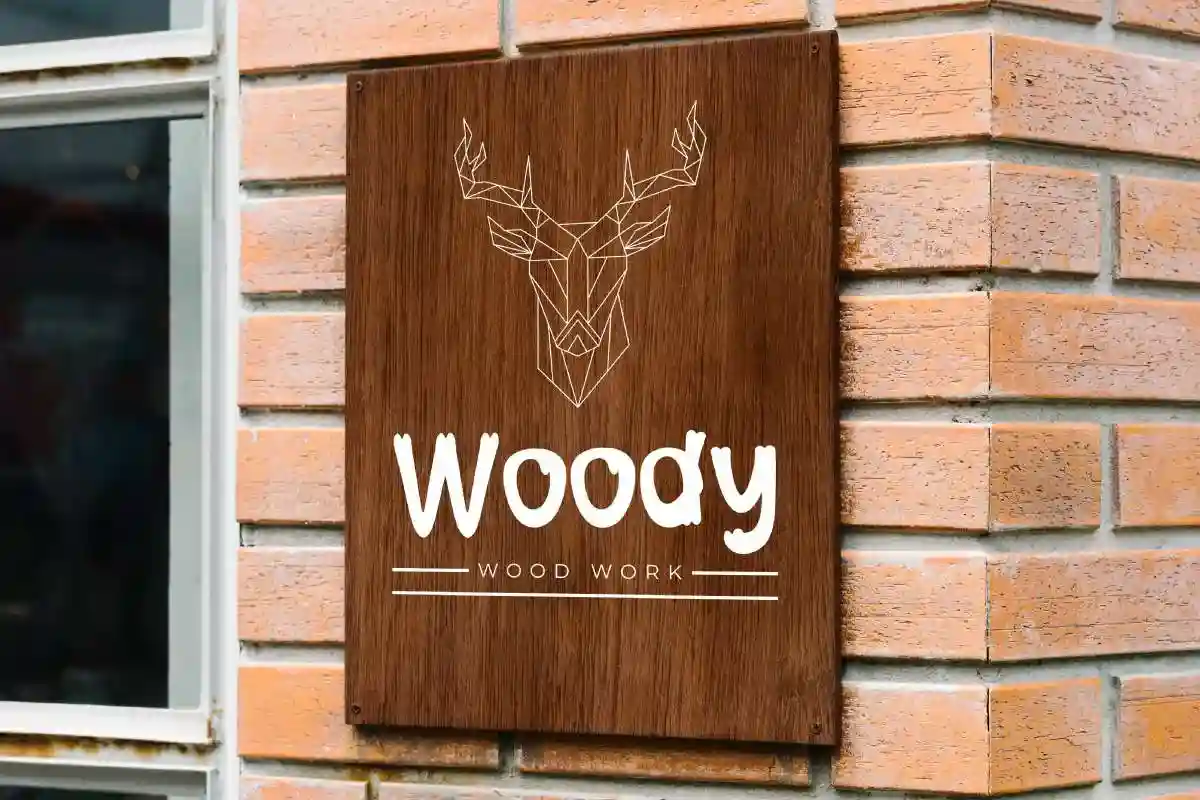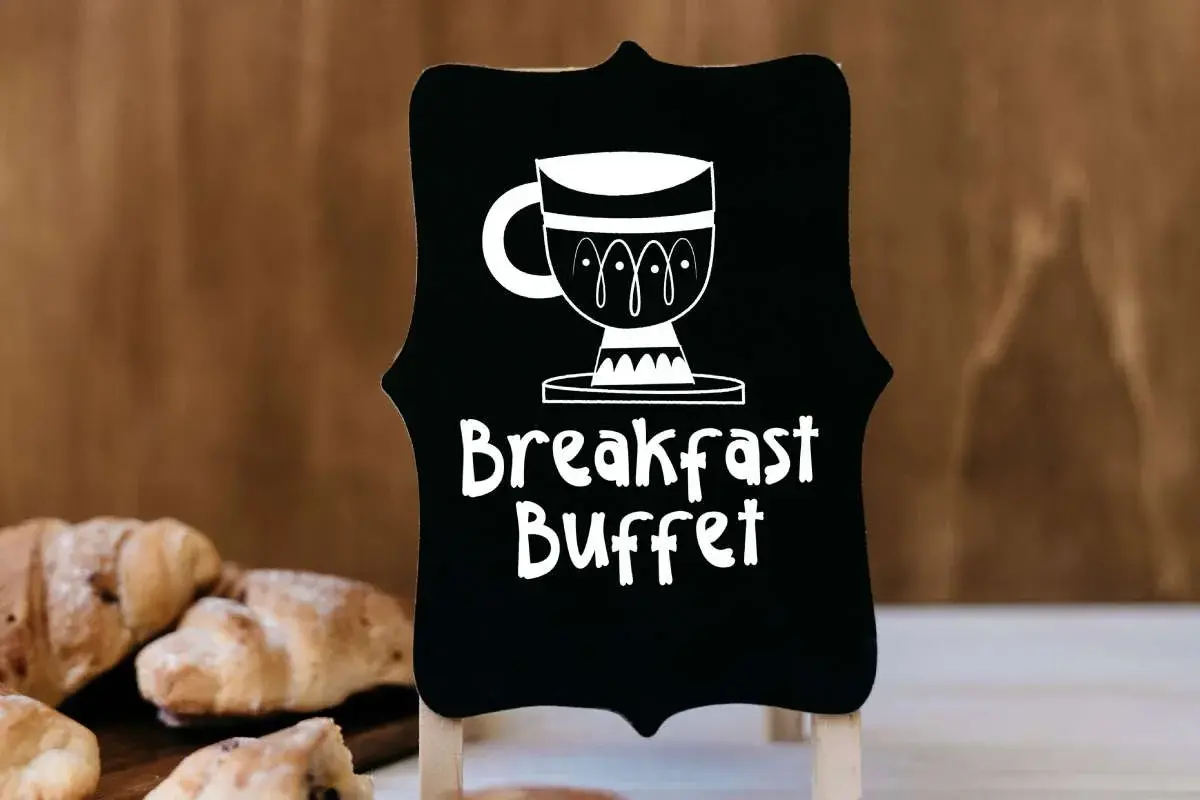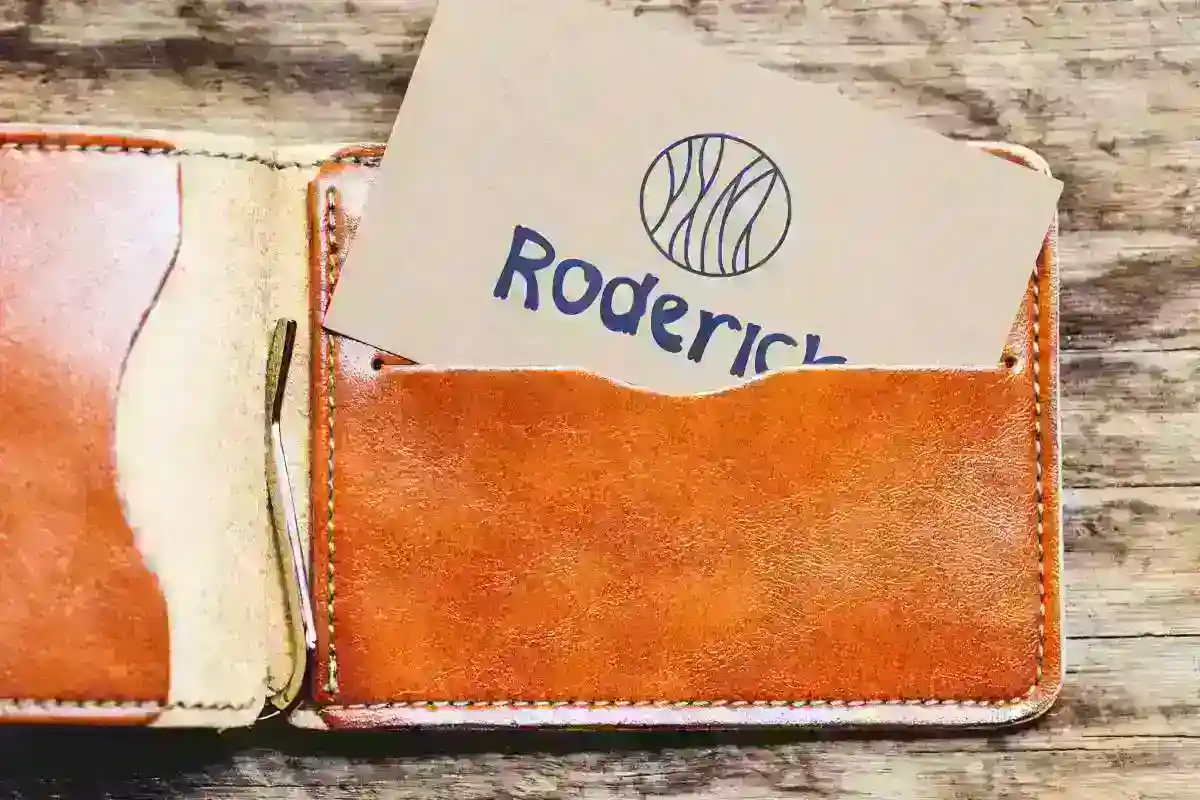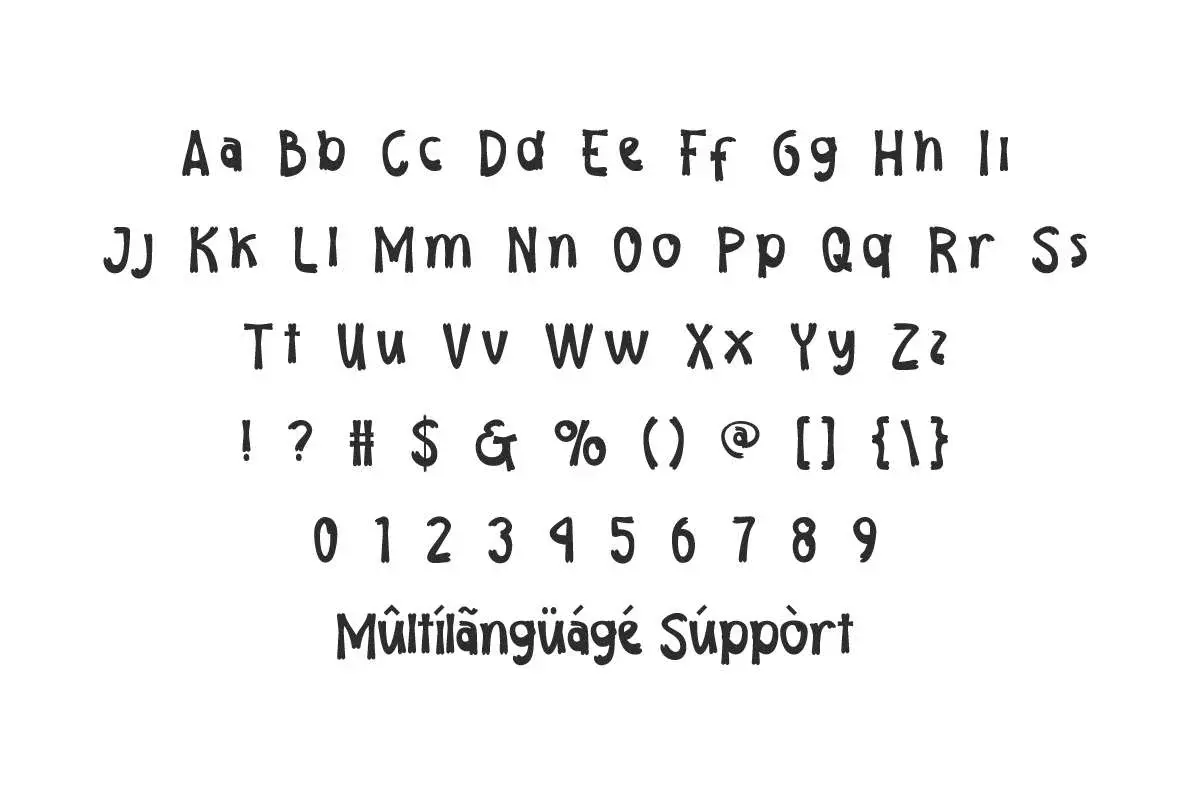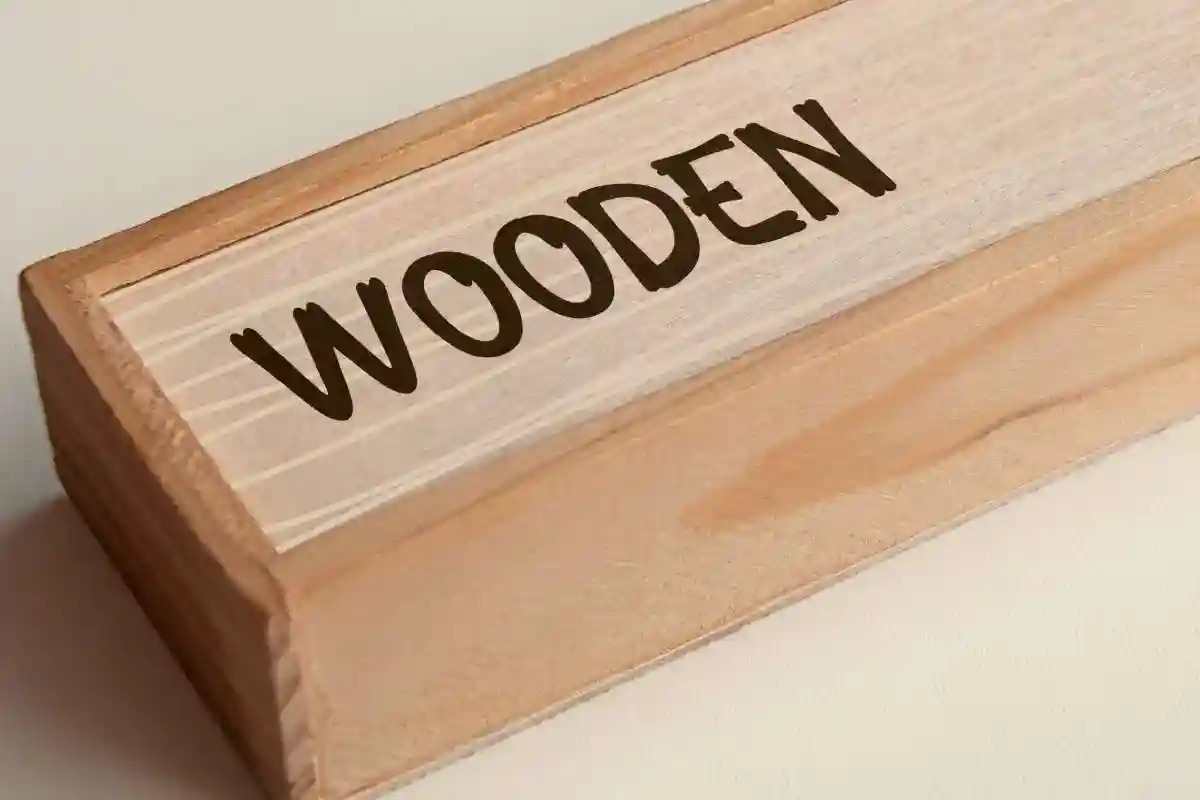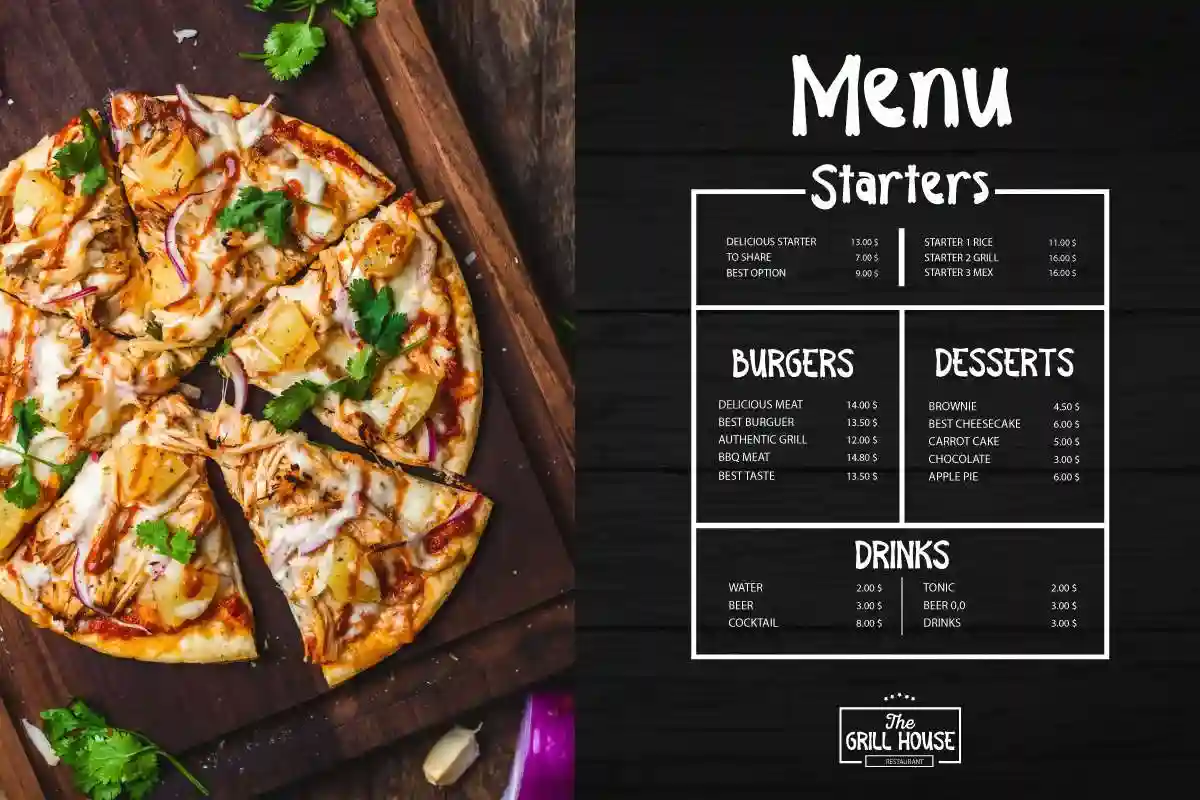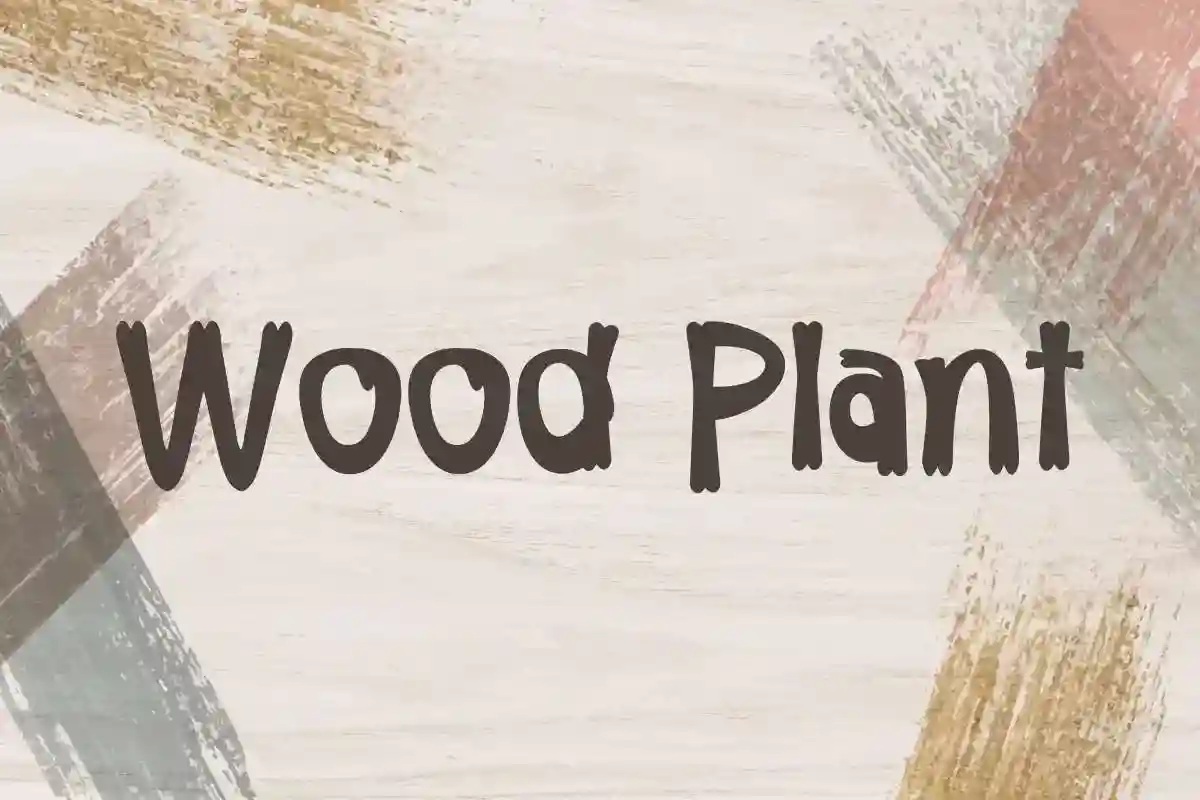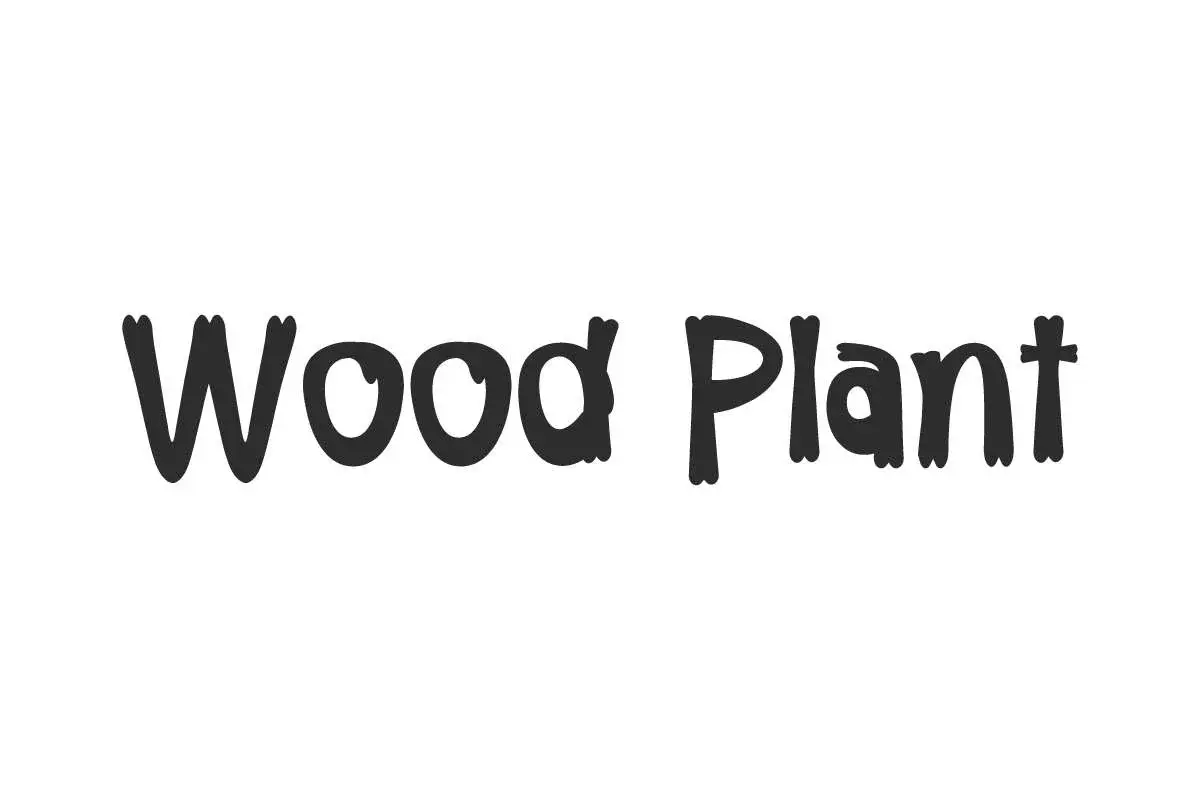
Wood Plant Font is an a retro themed font with wood edges styles. awesome wood display font that can captivate anyone who uses it. It would be perfect for classic themed things, like badge, wood carver, etc.
Wood Plant Font is Display a retro themed font with wood edges style. The font takes on the theme of nature, namely wood plants. It will be able to make whatever your design looks cool, such as apps, badge, billboard, brand logo, brochure, business card, catalog, cover, embossed design, flyer, header, invitation, label, magazine catalog, mockup design, poster, product design, quote, screen print, signage, social media posts, stationery, sticker, title, website, and any projects.
Wood Plant Font includes full set of Uppercase and Lowercase Basic Characters, Number, Punctuation, and Symbol. It is unique so it will make your business attractive, such as accessories, architect, author, barber, café, carpenter, carving, clothing brand, event organizer, fashion designer, furniture, handicraft, leather craftsman, lodging, movie, photography, restaurant, wood carver, and many more.